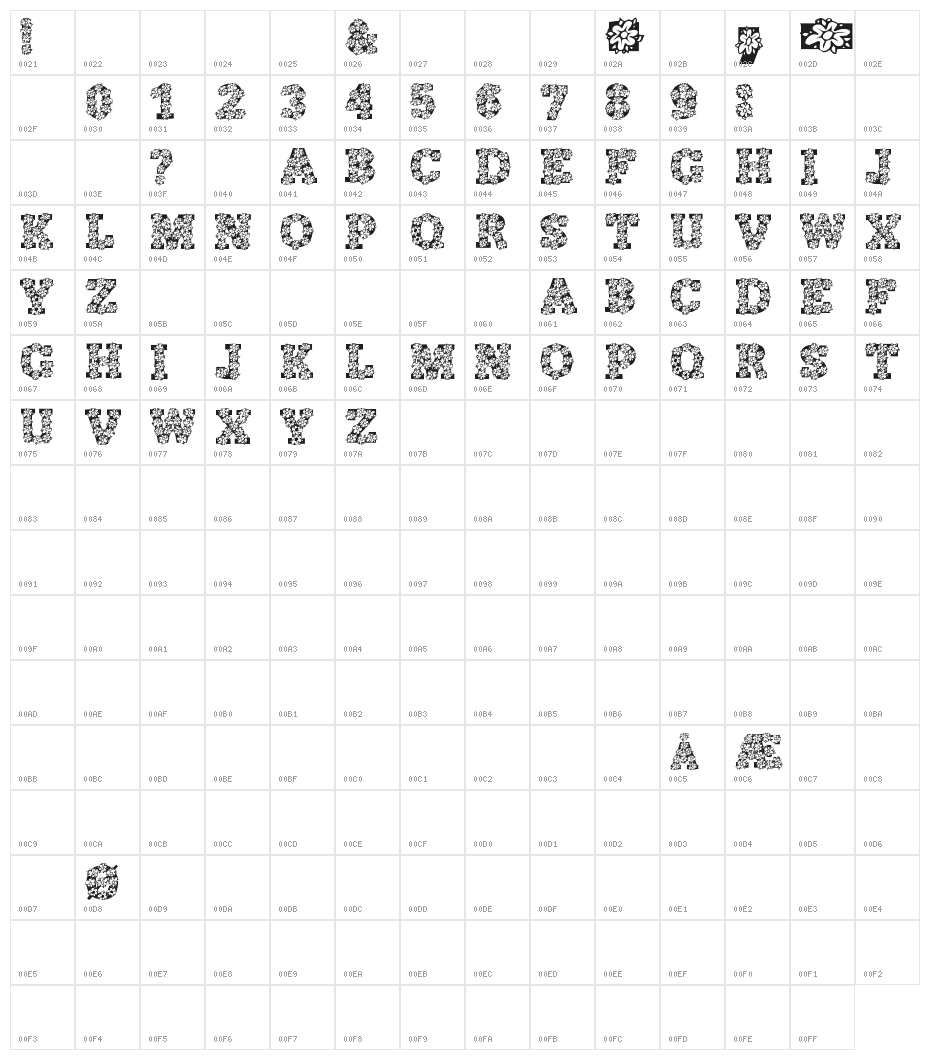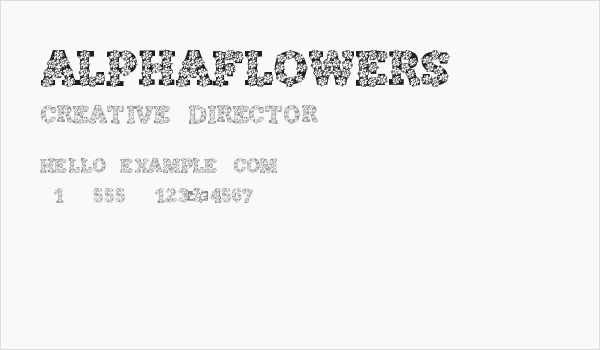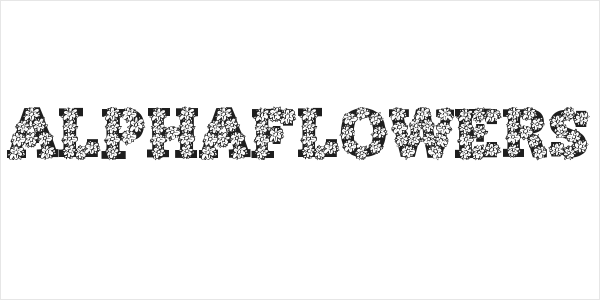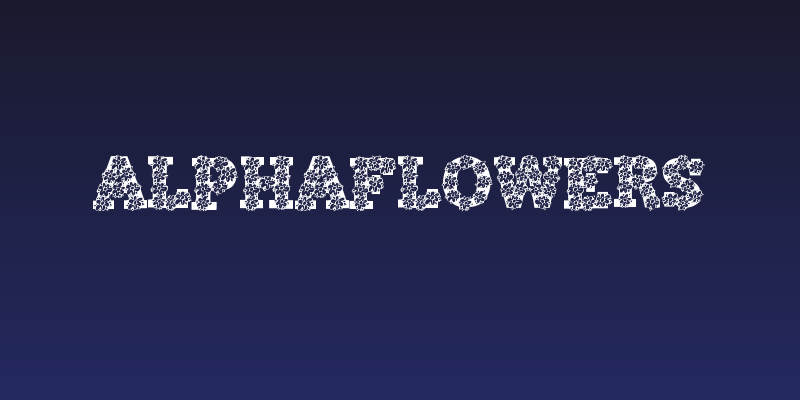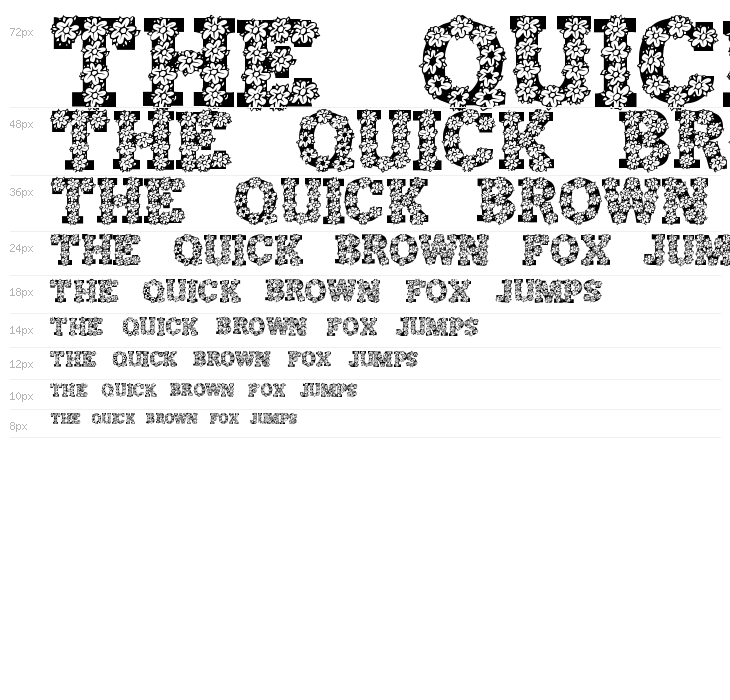
AlphaFlowers Font
AlphaFlowers Description
This font features a unique and decorative style, with each character intricately designed to resemble a cluster of flowers. The floral elements are tightly packed, creating a bold and eye-catching appearance. The uppercase and lowercase letters, as well as numbers and special characters, maintain a consistent floral theme, making it ideal for projects that require a touch of nature or whimsy. The design is both playful and artistic, making it suitable for creative and informal applications.